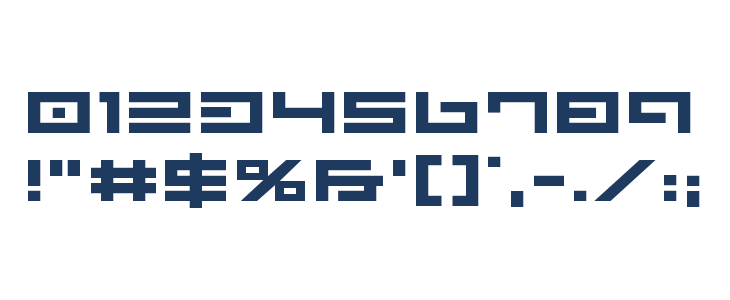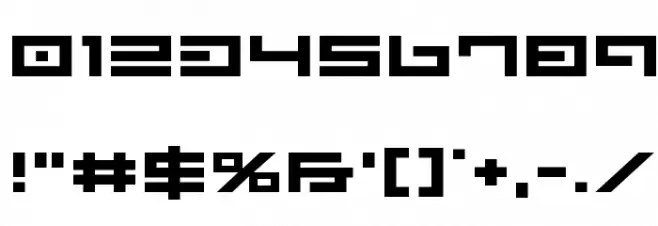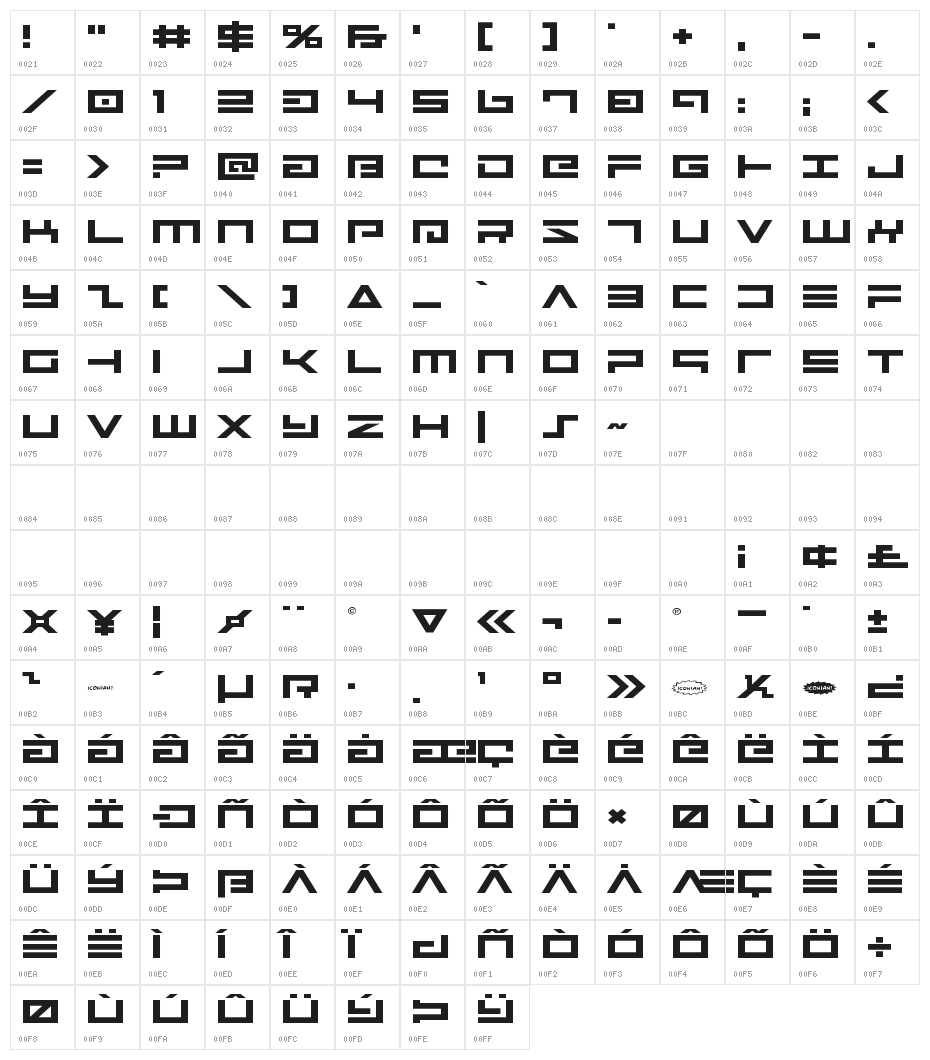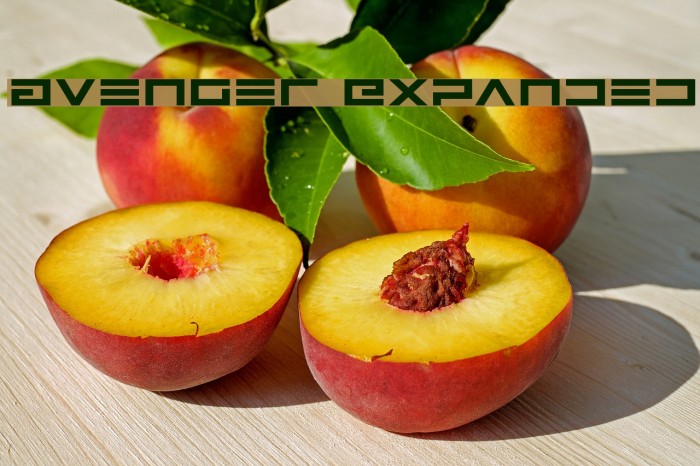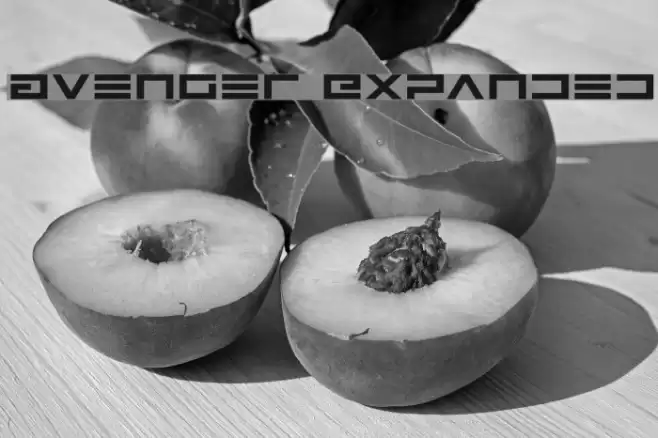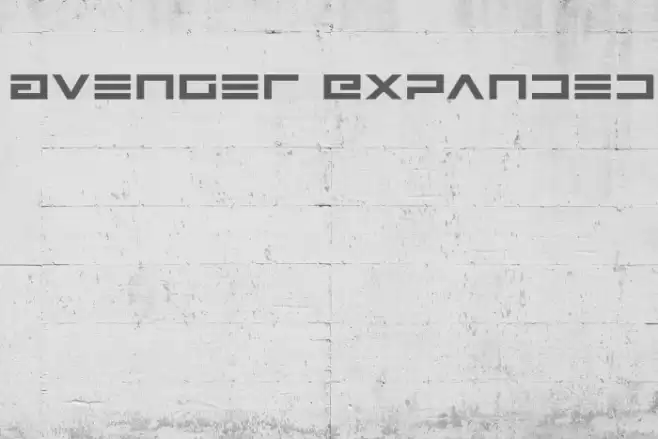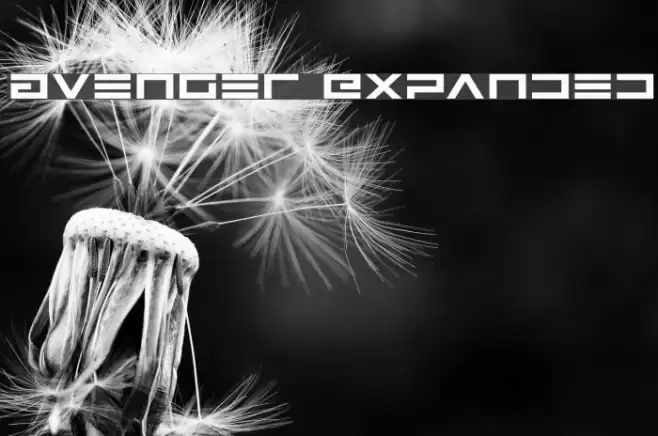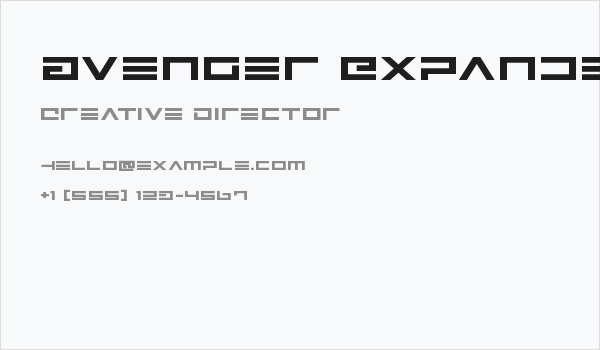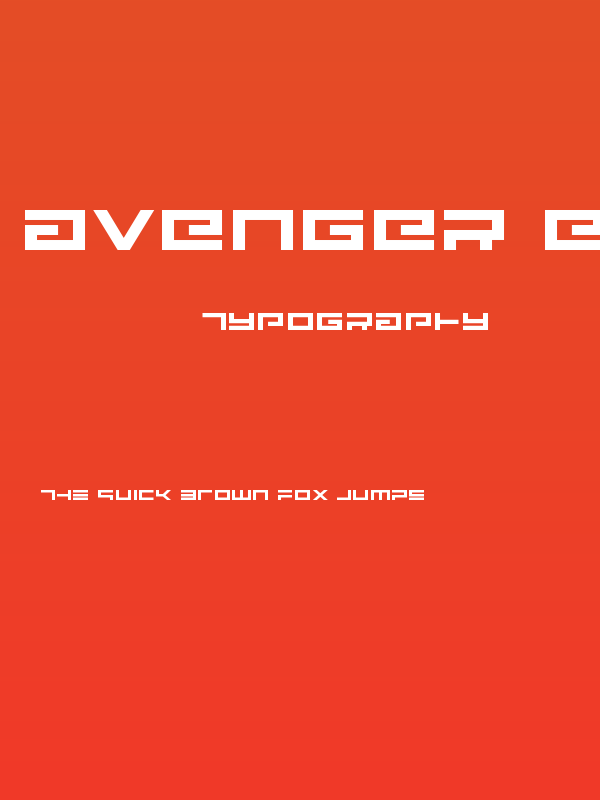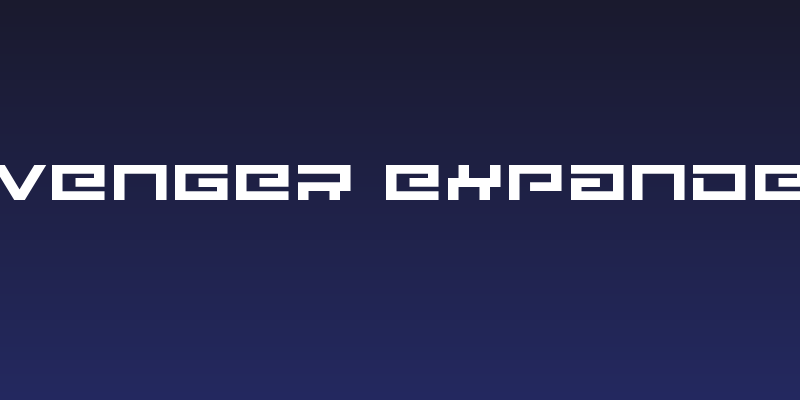
Avenger Expanded Font
Avenger Expanded Description
This font features a bold, geometric design with a futuristic and industrial feel. The characters are constructed with straight lines and sharp angles, giving it a mechanical and structured appearance. The uppercase and lowercase letters maintain a consistent height, contributing to a uniform and cohesive look. The numerals and special characters are designed to match the angular style, providing a seamless integration across all glyphs. The overall design is striking and modern, making it suitable for projects that require a strong visual impact.
| Proposed Projects | Ideal for sci-fi themed designs, technology branding, video game interfaces, and posters requiring a modern, edgy look. |